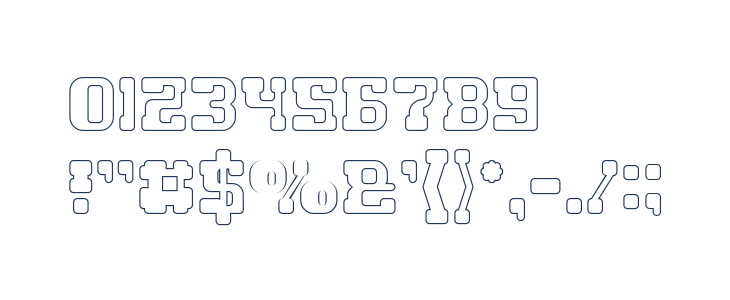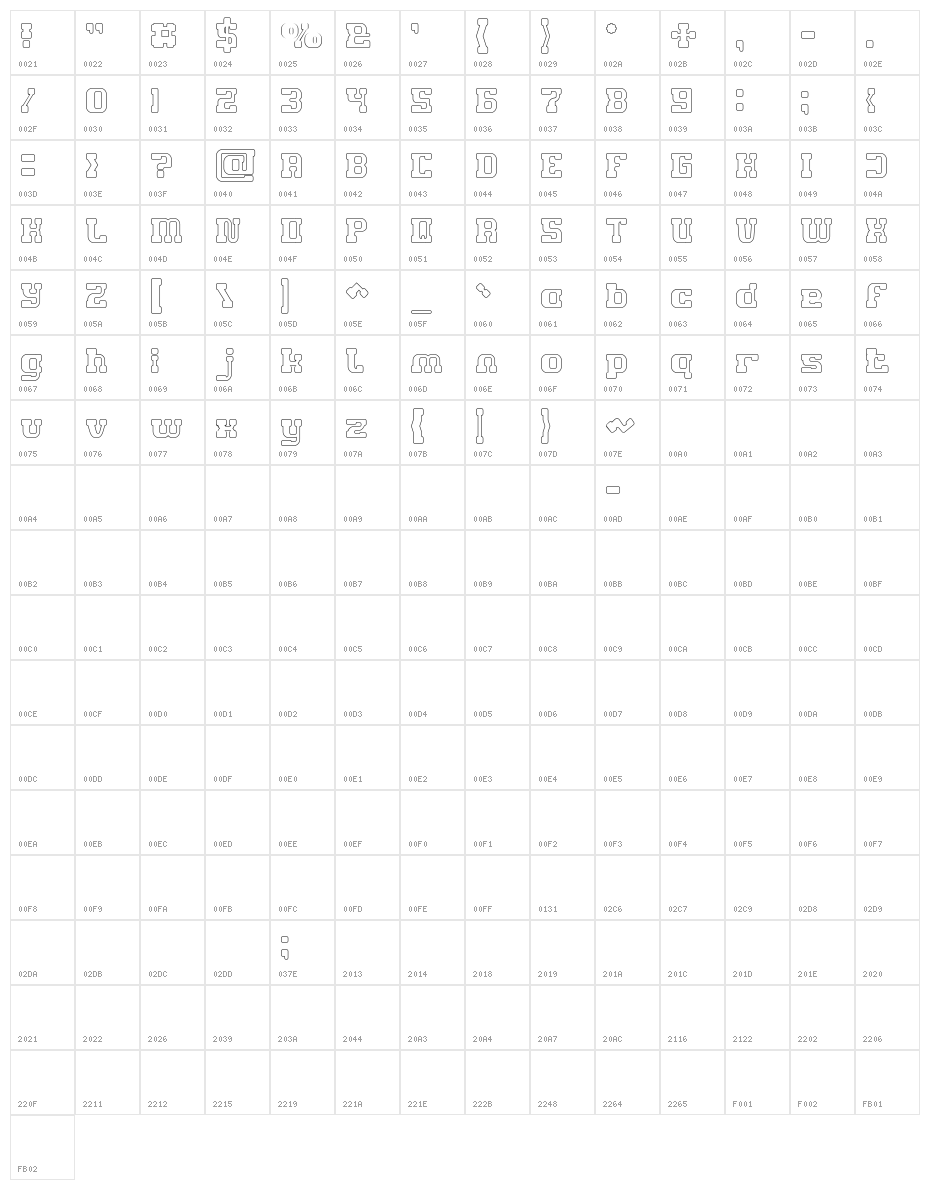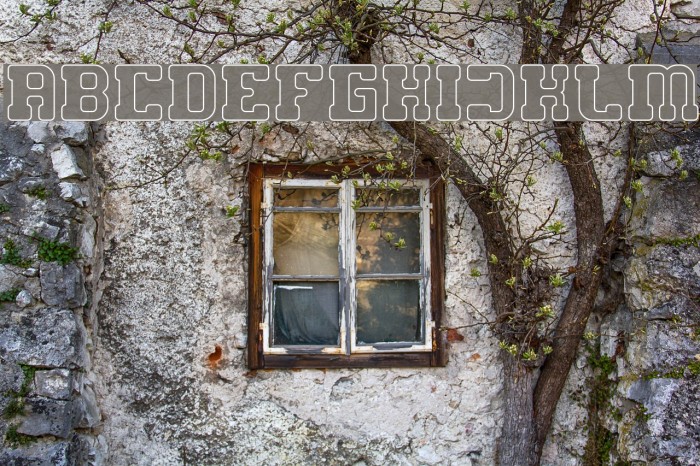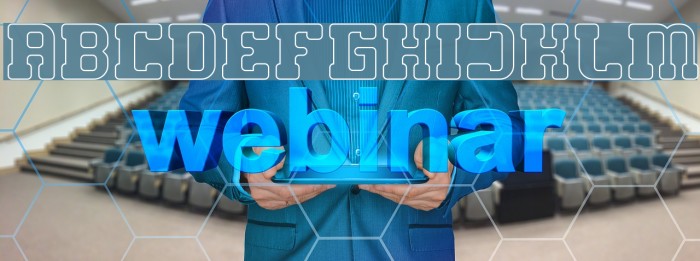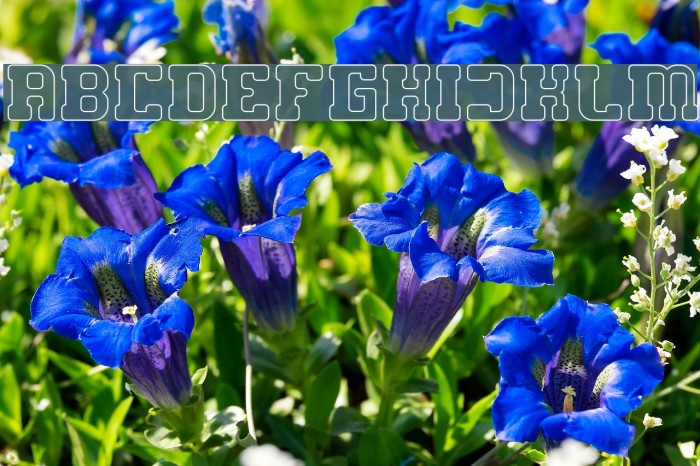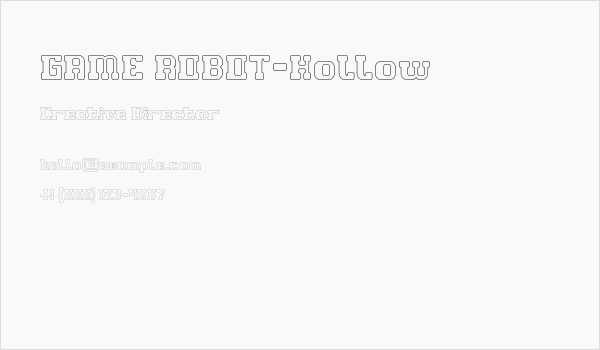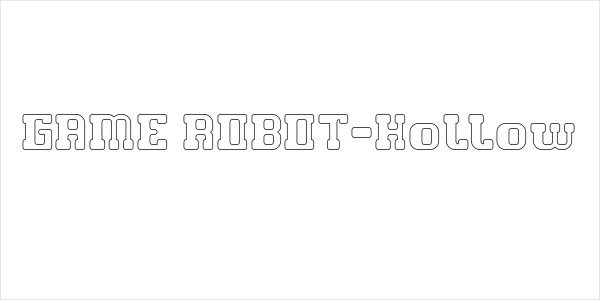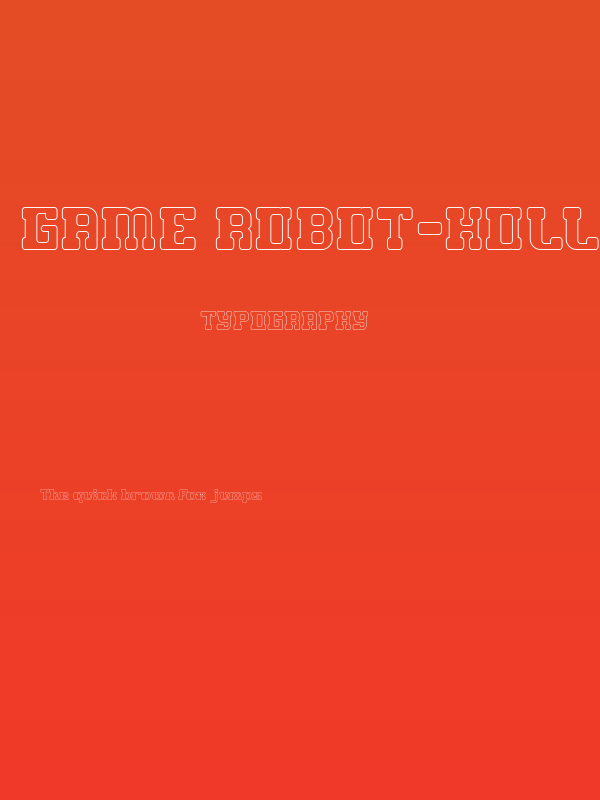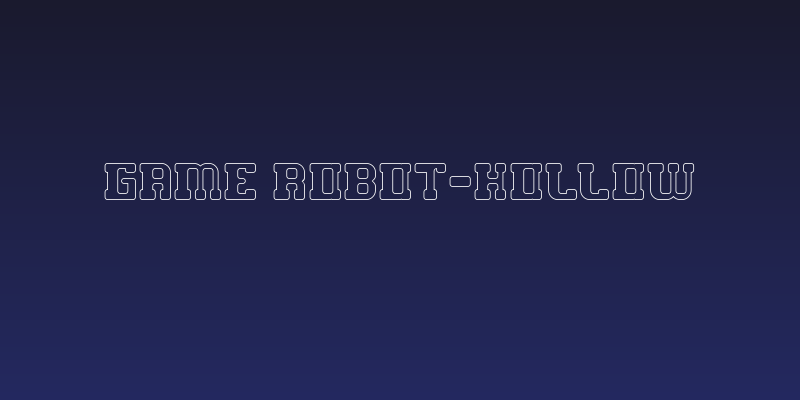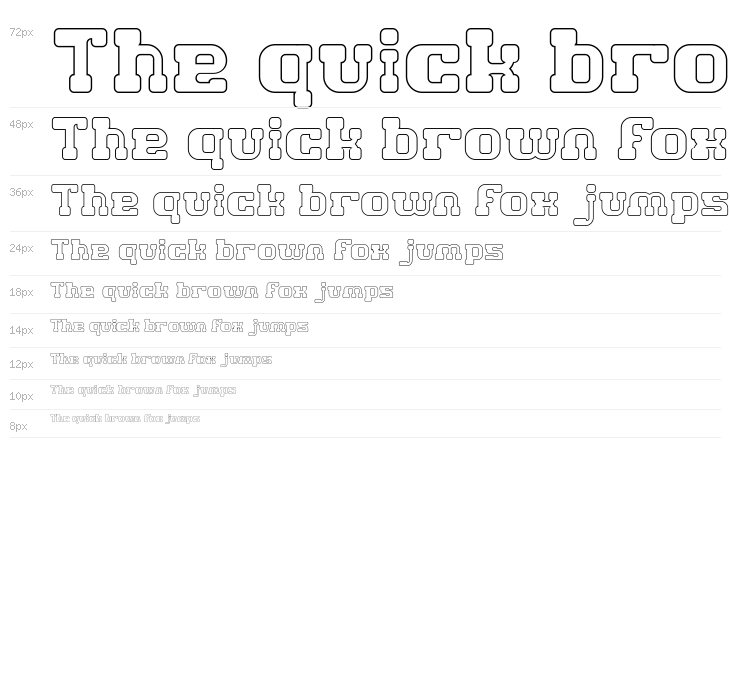
GAME ROBOT-Hollow Font
GAME ROBOT-Hollow Description
This font features a unique hollow design with a futuristic and robotic aesthetic. The characters are outlined, giving them a three-dimensional appearance. The uppercase and lowercase letters maintain a consistent style, with rounded edges and geometric shapes. The numbers and special characters follow the same design principles, ensuring uniformity across the font. The overall look is clean and modern, making it suitable for digital and print media where a tech-inspired theme is desired.
| Proposed Projects | Ideal for tech-themed projects, video game titles, sci-fi posters, and digital interfaces. |